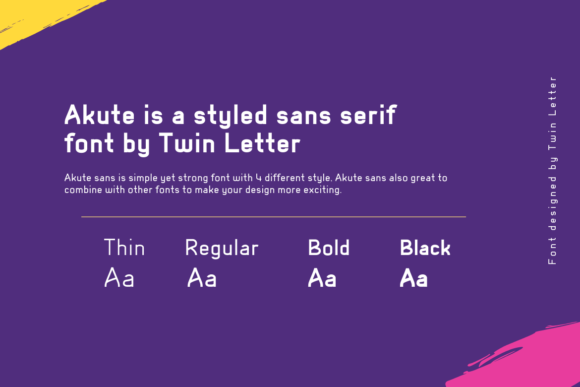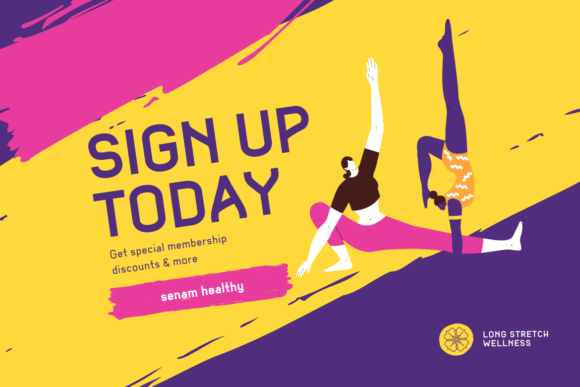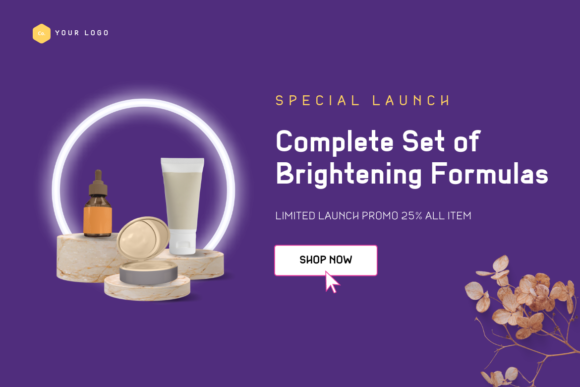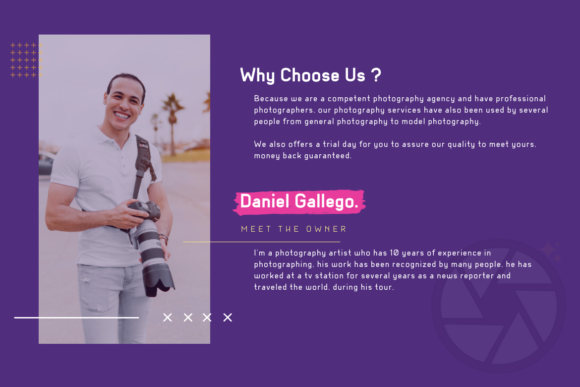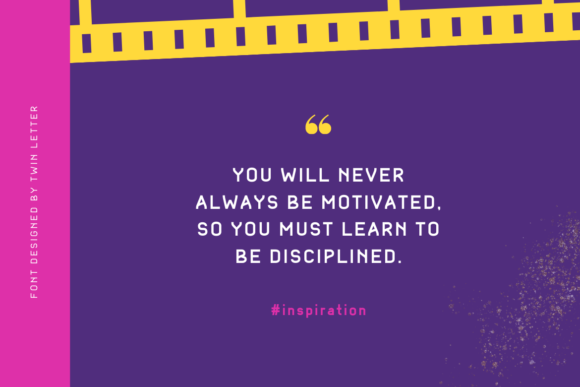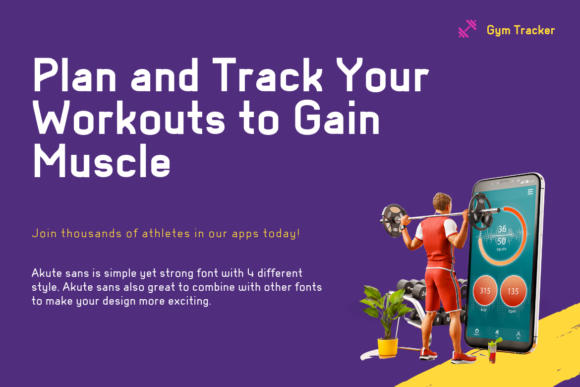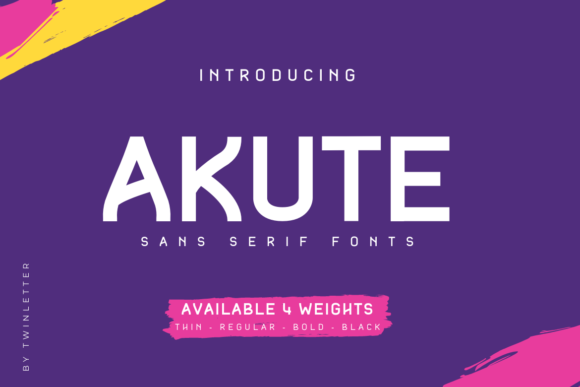
Discover the Bold and Modern Akute Font: Elevate Your Designs with Style
In the world of typography, fonts play a crucial role in conveying messages, expressing creativity, and establishing brand identities. For designers and crafters seeking a modern and cool sans serif font, Akute Font is an excellent choice. This versatile font is perfect for a wide range of applications, from logos and t-shirt printing to creative products and more. With its clean lines, elegant curves, and bold presence, Akute Font is sure to make your designs stand out in various contexts.
What Makes Akute Font So Special?
Akute Font boasts a unique blend of modernity and sophistication, making it an ideal choice for designers looking to create striking visuals. Here are some key features that set Akute Font apart:
- Modern Sans Serif Design: Akute Font features a sleek and contemporary sans serif design, making it perfect for projects that require a clean and minimalist aesthetic.
- Versatility: This font is incredibly versatile and can be used in a variety of contexts, from digital designs to print materials.
- Legibility: Akute Font is designed to be highly legible, ensuring that your message is conveyed clearly and effectively.
- Customization: With its wide range of weights and styles, Akute Font offers endless possibilities for customization, allowing you to tailor your design to your specific needs.
Perfect for Branding Projects
Akute Font is an excellent choice for branding projects, as it can help establish a strong visual identity for your brand. Here are some ways you can use Akute Font to elevate your branding:
- Logo Design: Create a bold and memorable logo that showcases your brand’s personality and values.
- T-Shirt Printing: Design eye-catching t-shirts that feature Akute Font, perfect for promoting your brand or creating merchandise.
- Business Cards: Use Akute Font to create professional and stylish business cards that make a lasting impression.
- Social Media Graphics: Create engaging social media graphics that feature Akute Font, helping you to stand out in a crowded online space.
Tips for Using Akute Font Effectively
To get the most out of Akute Font, here are some tips to keep in mind:
- Pair with Other Fonts: Experiment with pairing Akute Font with other fonts to create visually appealing combinations.
- Play with Weights and Styles: Take advantage of Akute Font’s range of weights and styles to add depth and interest to your design.
- Use for Headings and Titles: Use Akute Font for headings and titles to create a bold and eye-catching effect.
- Experiment with Colors: Try out different colors and gradients to add an extra layer of visual interest to your design.
Akute Font is a powerful and versatile font that can elevate your designs and help you establish a strong brand identity. With its modern sans serif design, legibility, and customization options, Akute Font is perfect for a wide range of applications. Whether you’re a designer, crafter, or entrepreneur, Akute Font is an excellent choice for anyone looking to create bold and stylish visuals. So why wait? Download Akute Font today and start taking your designs to the next level!